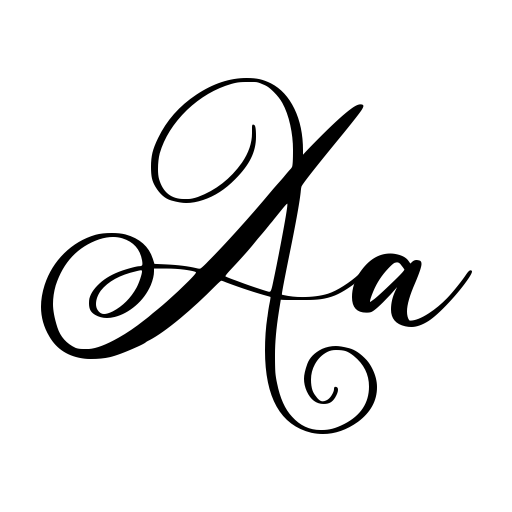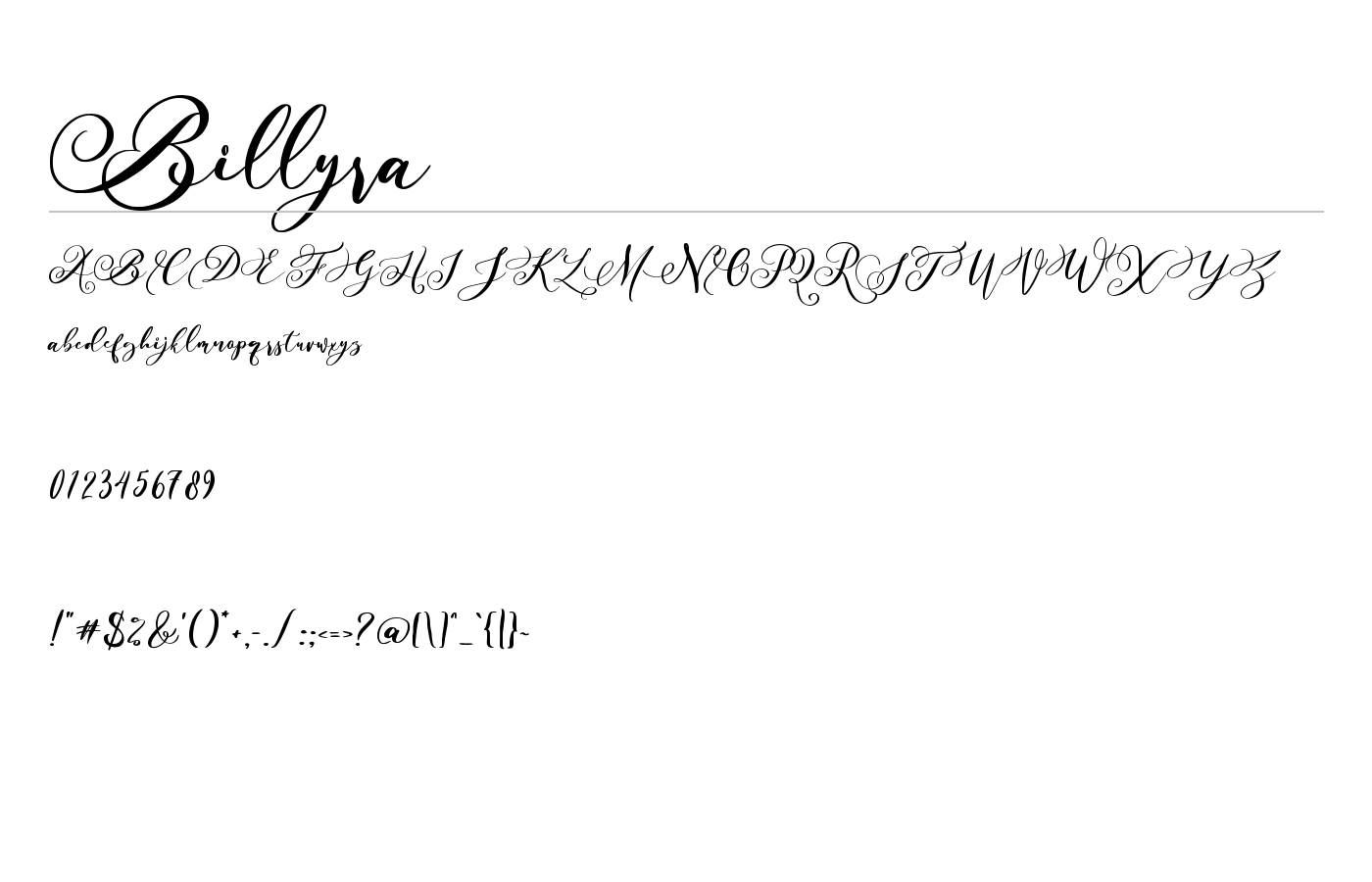
Billyra is an elegant handwritten script font featuring flowing, delicate letterforms with high contrast between thin and thick strokes, creating a graceful and refined look. Its intricate swashes on uppercase letters and smooth, cursive lowercase make it ideal for luxury branding, invitations, and stylish logos that require a sophisticated, romantic feel. This font works beautifully in designs that aim to convey elegance and artistic flair while maintaining readability.
Billyra Font
About Billyra Font